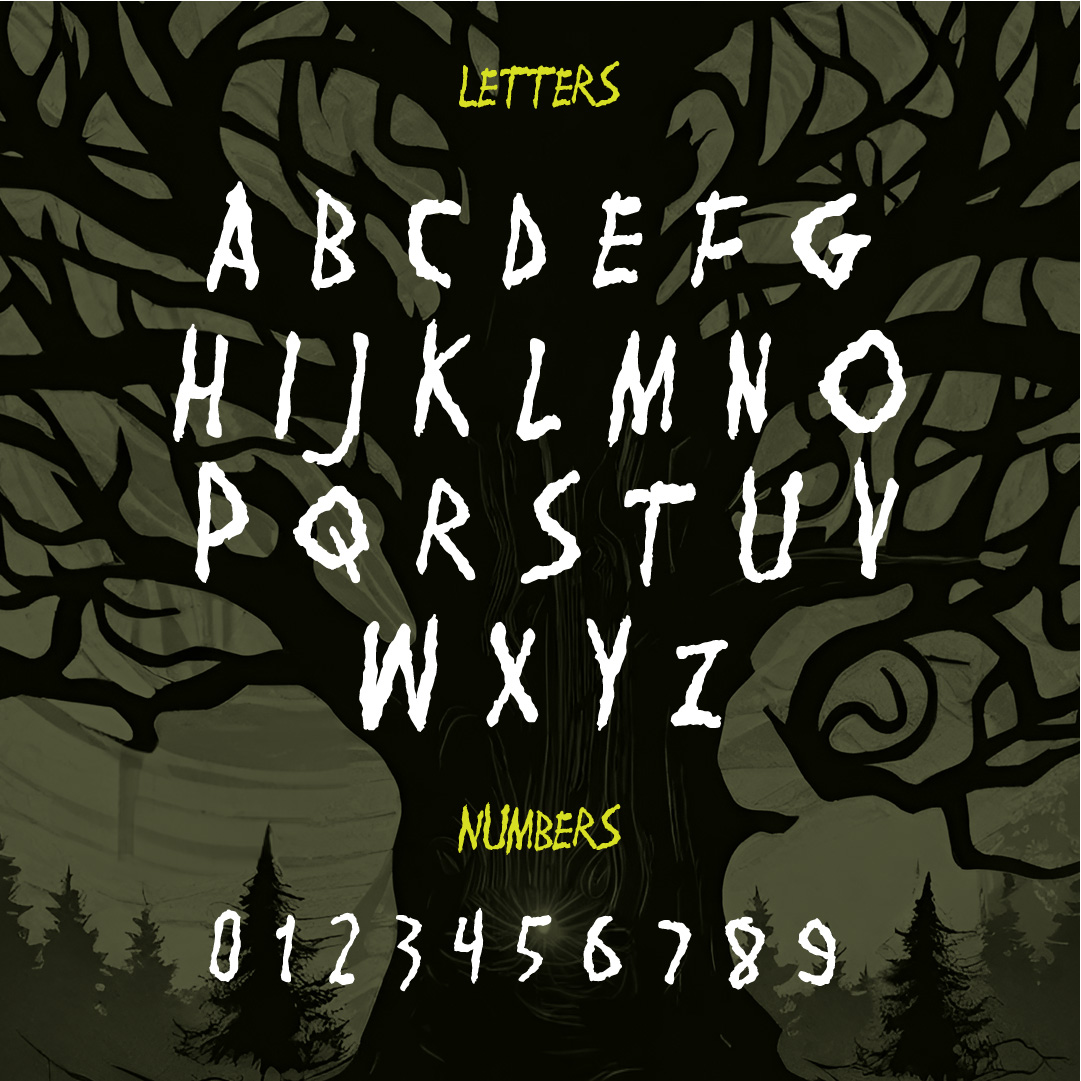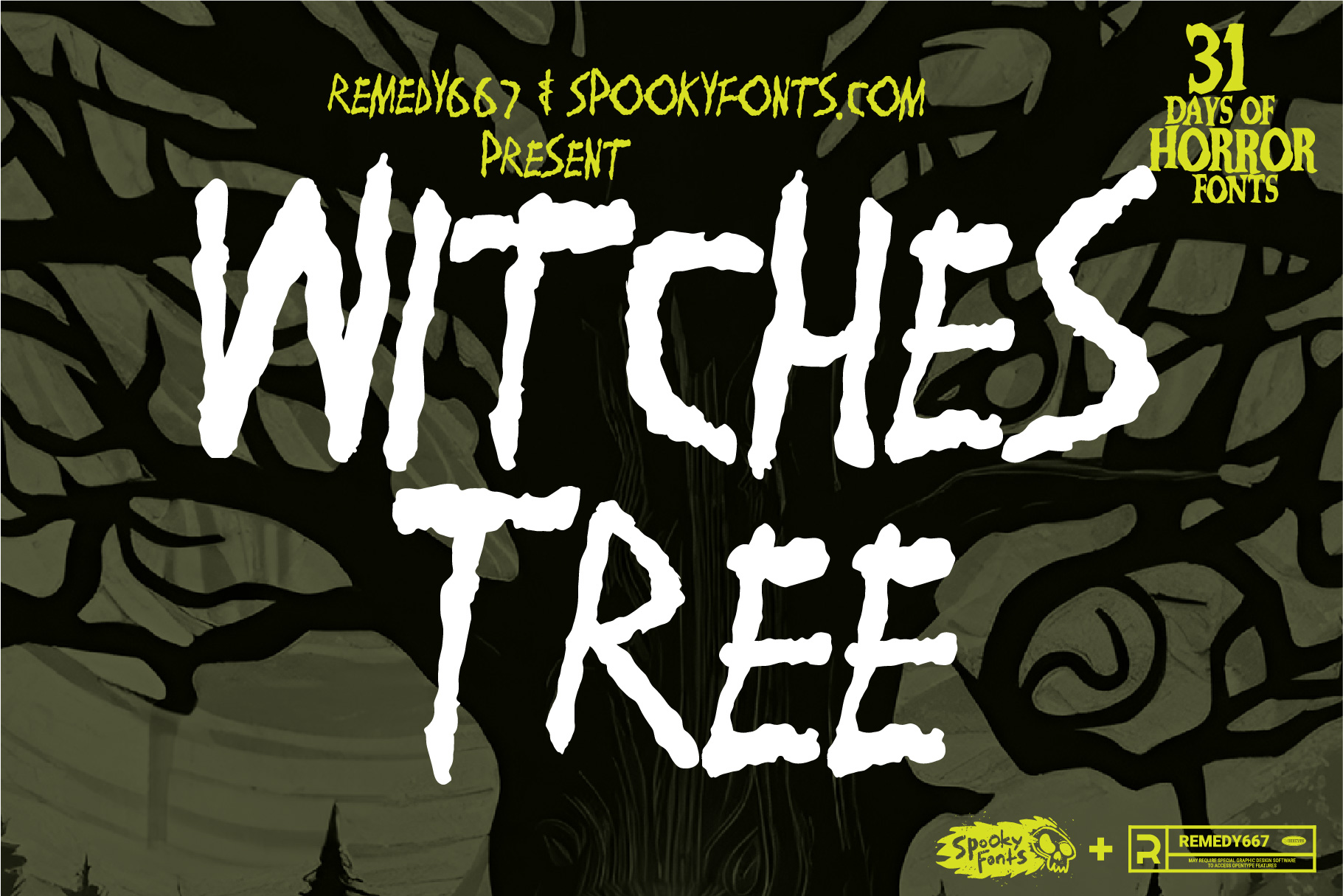
Witches’ Tree
A font carved from the bark of a twisted walnut tree for macabre designs.
Enter the haunting world of the Witches’ Tree, a carved in bark typeface that will send shivers down your spine. This bone-chilling font is perfect for all your macabre design needs, whether you’re designing invitations to a Halloween party or creating sinister book covers that will make even the bravest souls tremble. With its intricate and eerie design, Witches’ Tree adds an air of mystery and darkness to any project.
Each letter of this ghastly typeface is painstakingly carved into an ancient tree trunk, giving it an unparalleled level of detail and authenticity. The twisted branches and gnarled roots entwine around each letter, casting sinister shadows on the page. The jagged edges and sharp angles evoke a sense of otherworldliness, as if these letters were conjured from the depths of a witch’s cauldron.
But don’t be fooled by its macabre appearance – beneath its spooky exterior lies exceptional legibility. Each character is finely crafted to ensure readability without compromising on its eerie charm. Whether you’re writing wicked tales or brewing up potions in your graphic designs, Witches’ Tree will captivate your audience with its enchanting yet terrifying allure. Step into the realm where language meets witchcraft with